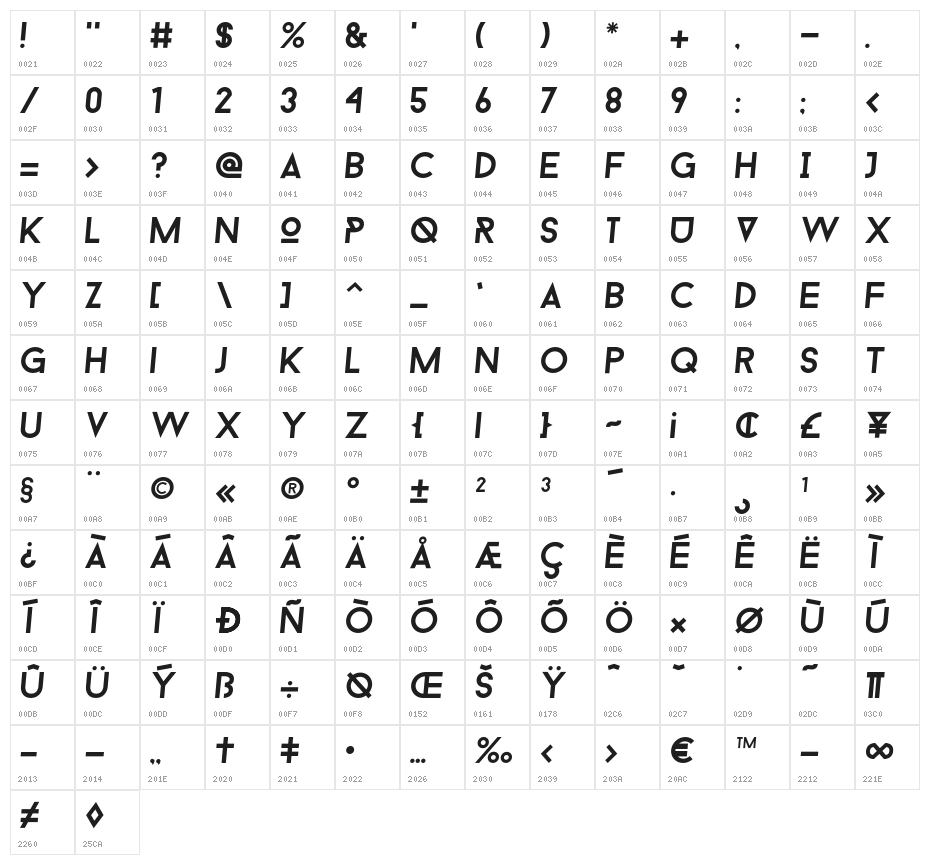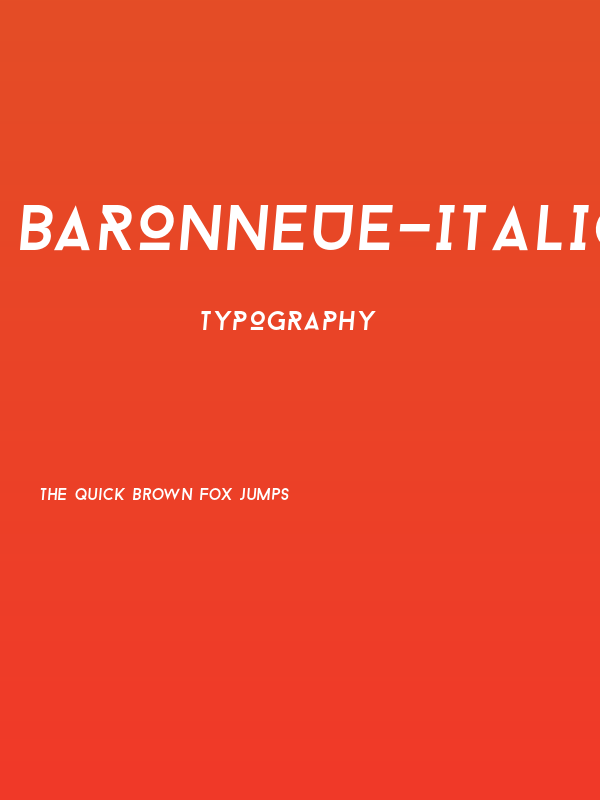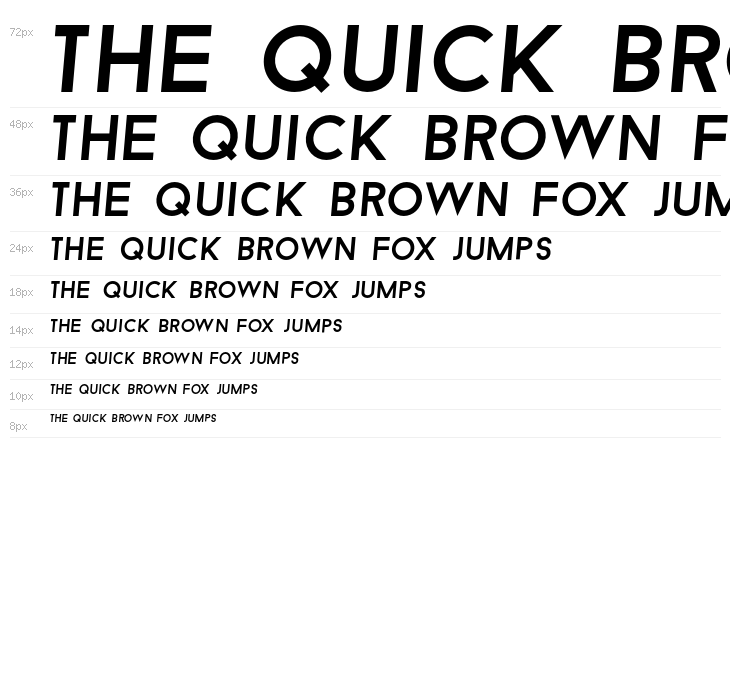
BaronNeue-Italic Font
BaronNeue-Italic Description
This font features a modern and sleek design with a distinct italic slant, giving it a dynamic and forward-moving appearance. The characters are clean and geometric, with consistent stroke widths that provide a uniform look. The uppercase letters are bold and assertive, while the lowercase letters maintain a cohesive style that complements the uppercase. Numbers are clear and easily distinguishable, making them suitable for various applications. Special characters are well-defined, adding versatility to the font's use. The overall design is contemporary, making it ideal for projects that require a modern and stylish aesthetic.
| Proposed Projects | Ideal for branding, advertising, headlines, and digital media projects where a modern and stylish look is desired. |